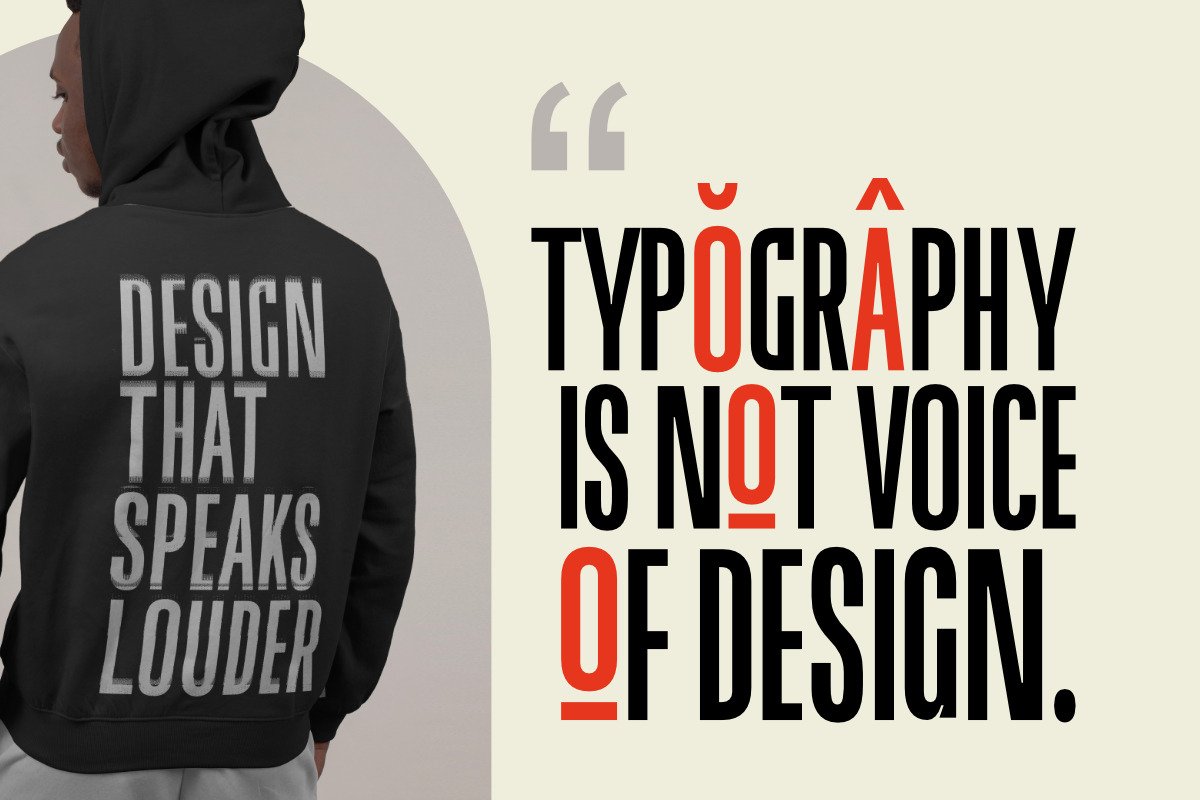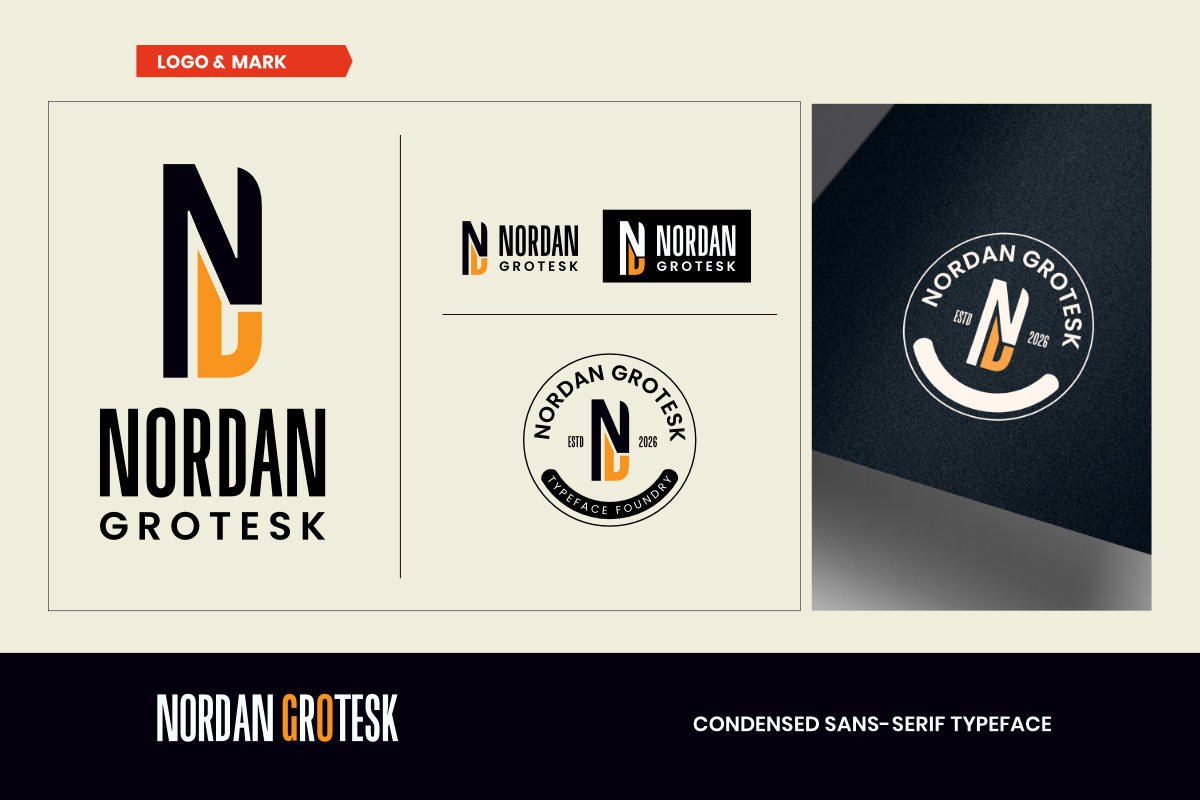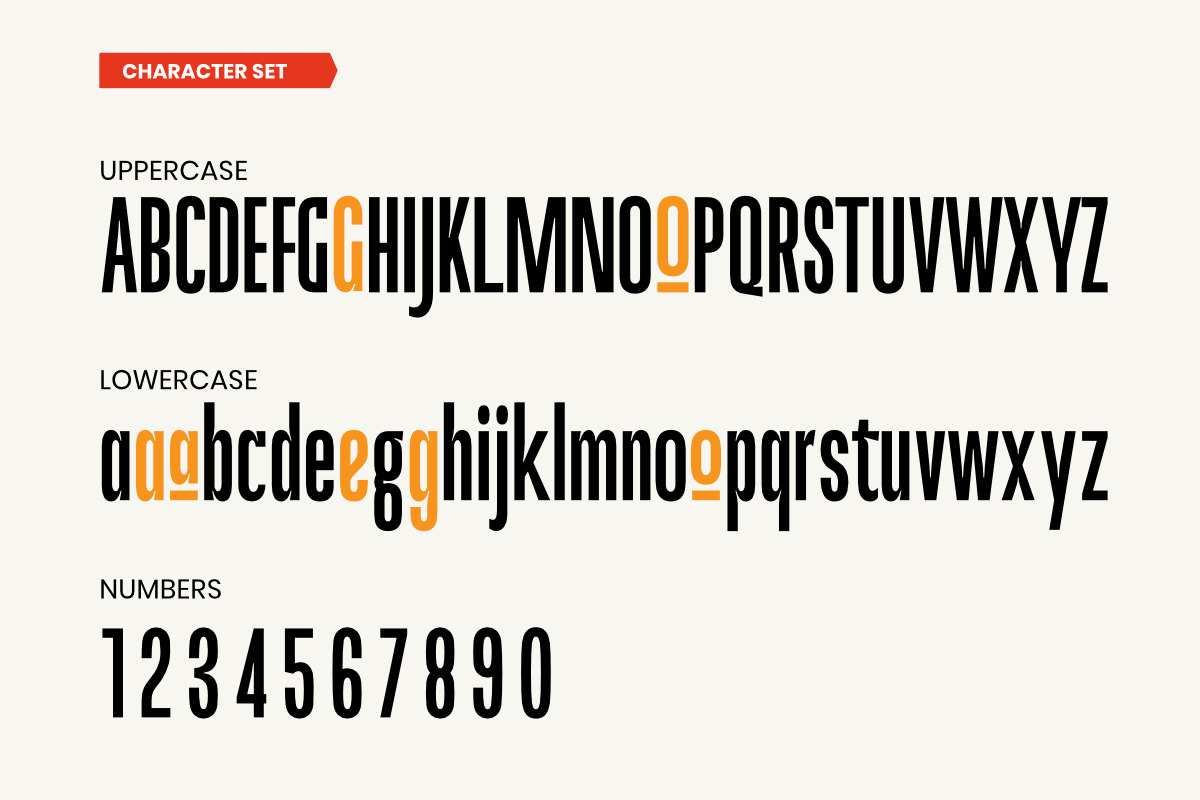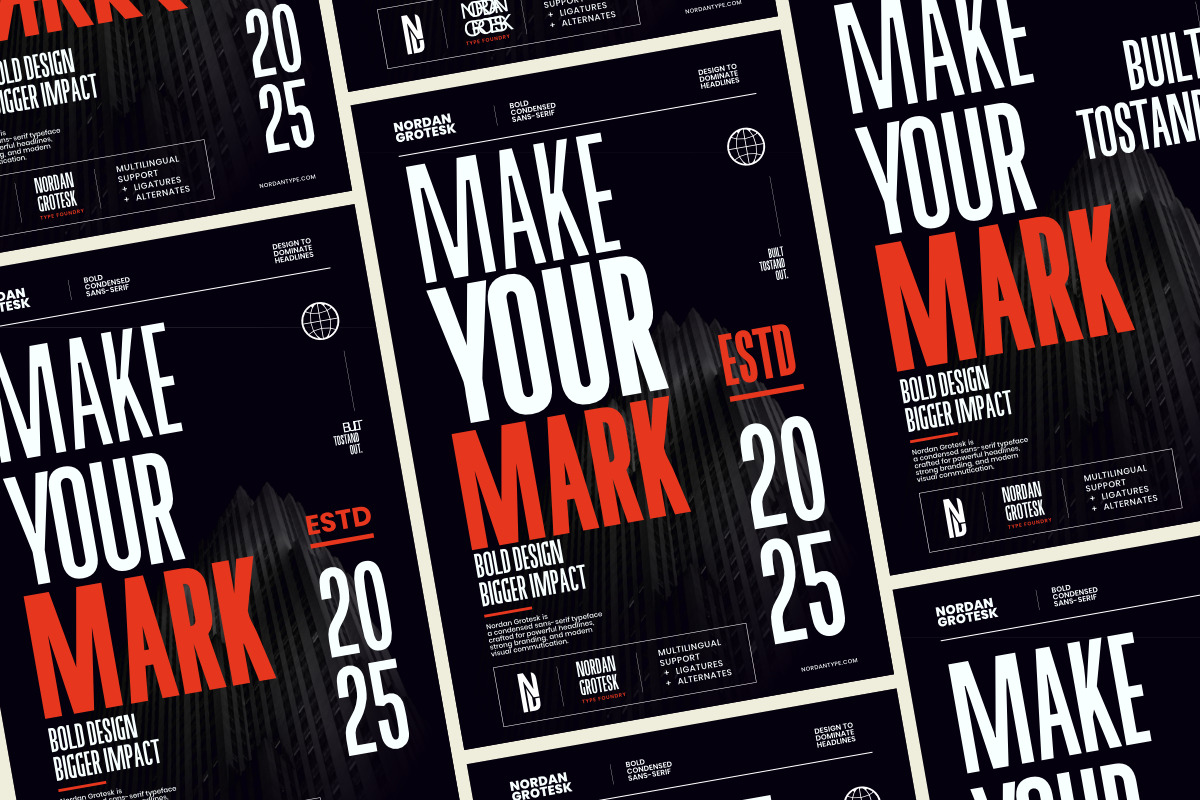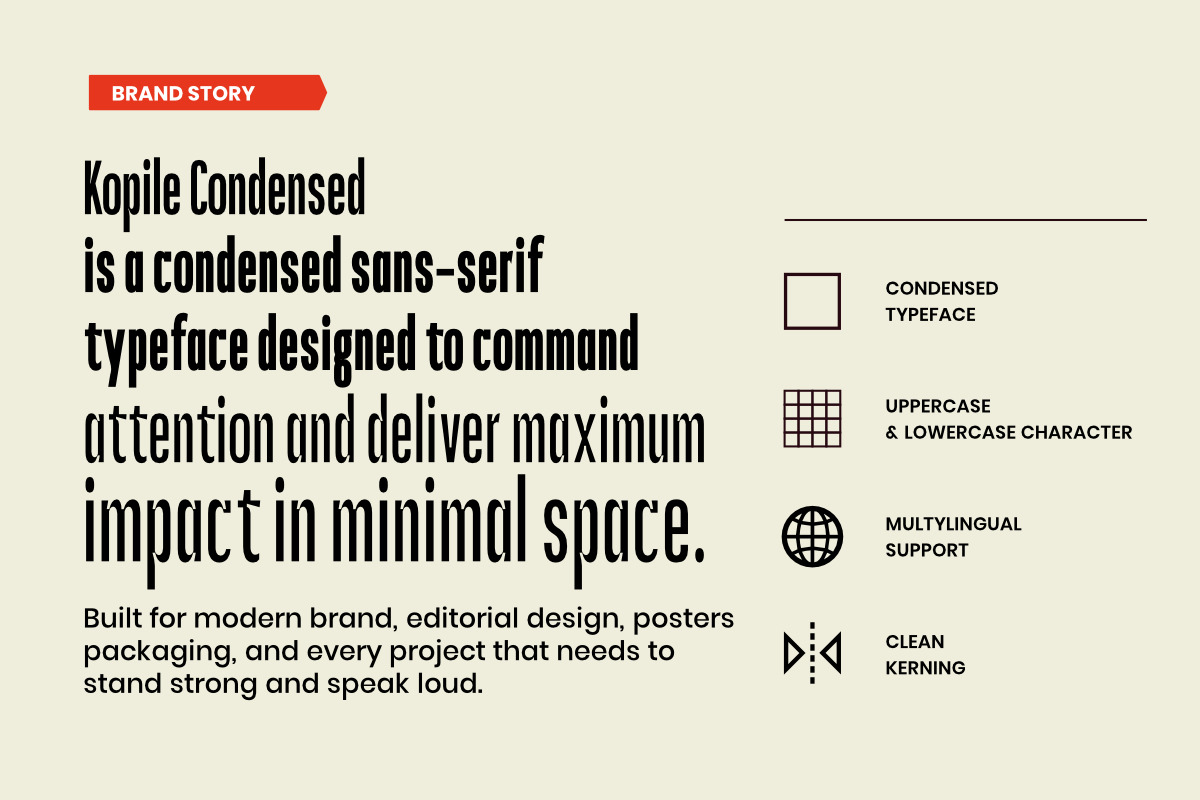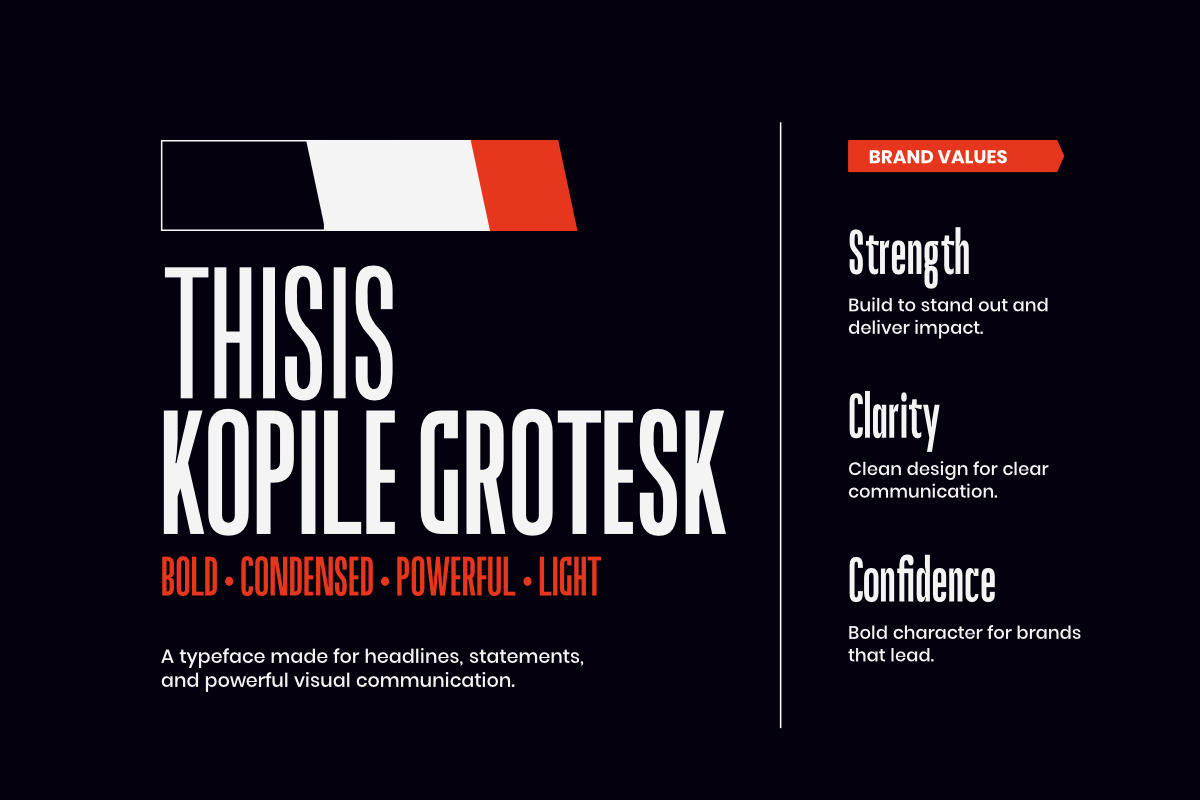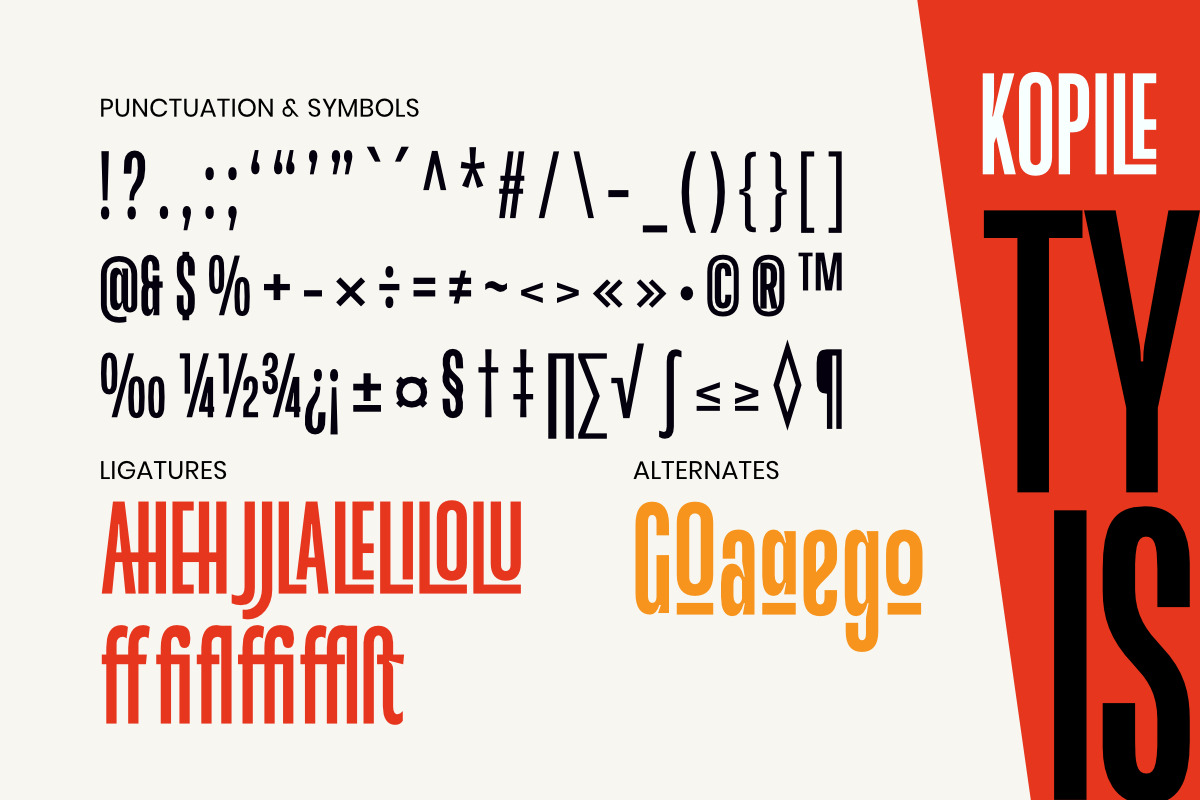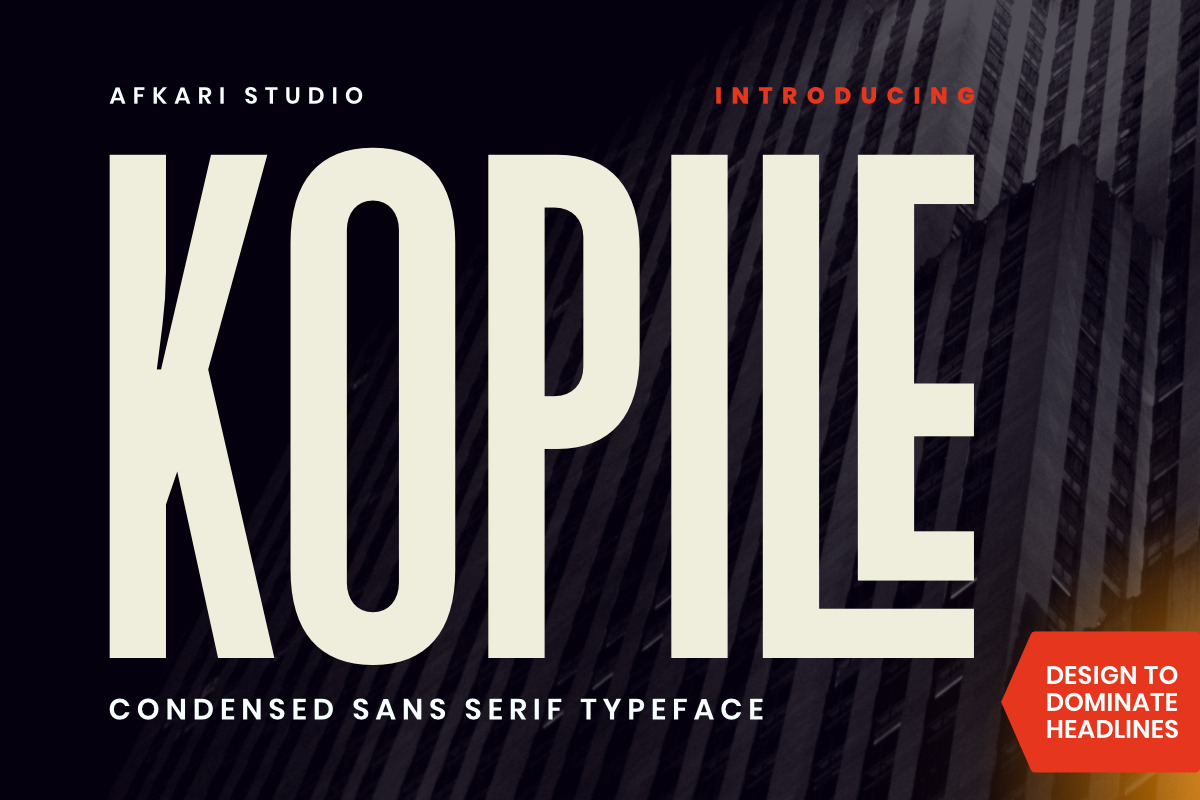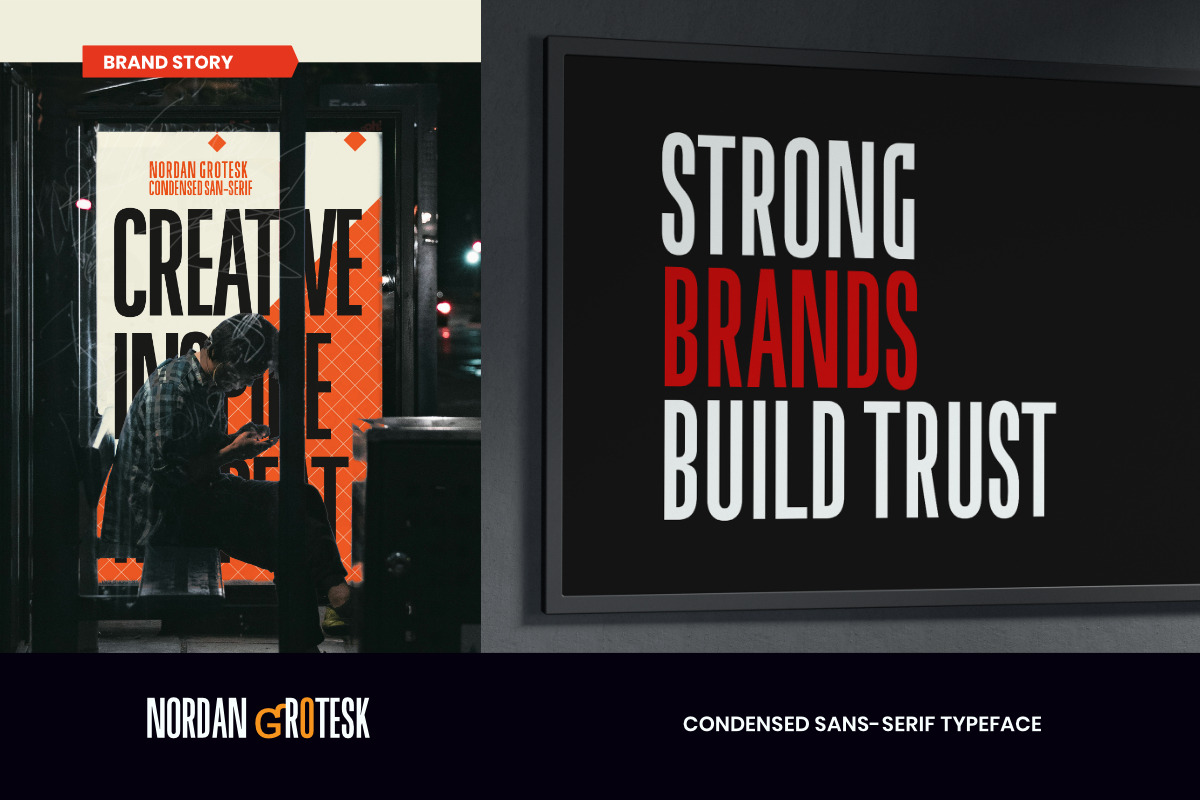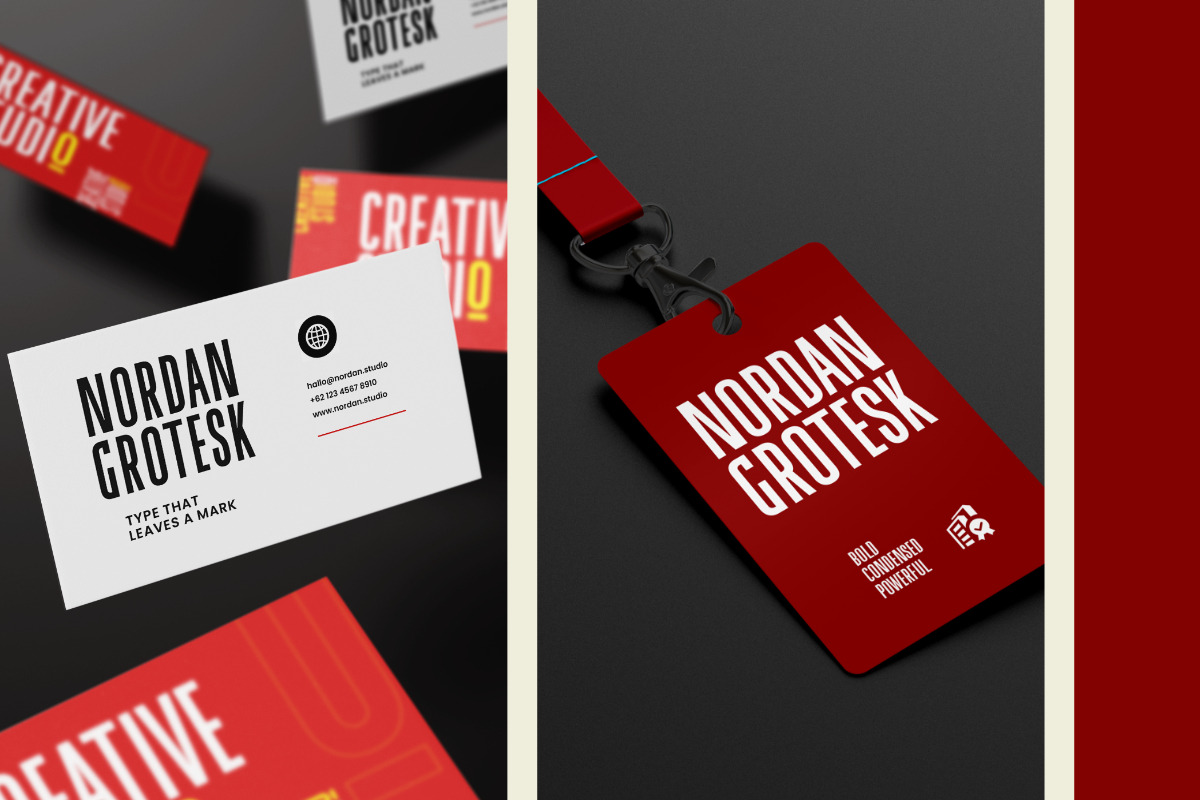
Kopile - Condensed Typeface
Kopile is a modern condensed sans serif typeface designed for creators who need strong visual impact, clean readability, and versatile typography in one professional font family. Built with a sleek condensed structure and balanced geometric proportions, Kopile delivers a modern aesthetic that works perfectly across branding, editorial, advertising, and digital design projects.
This condensed sans serif font is carefully crafted to maximize space while maintaining clarity and style. Its narrow letterforms create a bold and efficient look, making it ideal for headlines, logos, posters, packaging, and social media graphics where strong typography is essential.
Kopile comes in Light, Regular, and Bold styles, giving designers the flexibility to create elegant minimalist layouts, professional branding systems, or powerful attention-grabbing headlines. Each weight is designed to complement one another seamlessly, making typography combinations feel cohesive and modern.
With its clean lines and contemporary appearance, Kopile is highly versatile for both corporate and creative projects. Whether you are designing fashion branding, tech visuals, magazine layouts, or modern advertising campaigns, this font helps your work look sharp, professional, and visually impactful.
Highlighted Features:
3 font styles: Light, Regular, and Bold
Modern condensed sans serif design
Complete set of uppercase and lowercase letters, numerals, and punctuation
Clean geometric structure with excellent readability
Multilingual support including characters such as ä, ö, ü, Ä, Ö, Ü, ß, ¿, and ¡
Upgrade your typography with Kopile—a modern condensed sans serif typeface crafted to deliver clean aesthetics, professional versatility, and bold visual impact for every creative project.